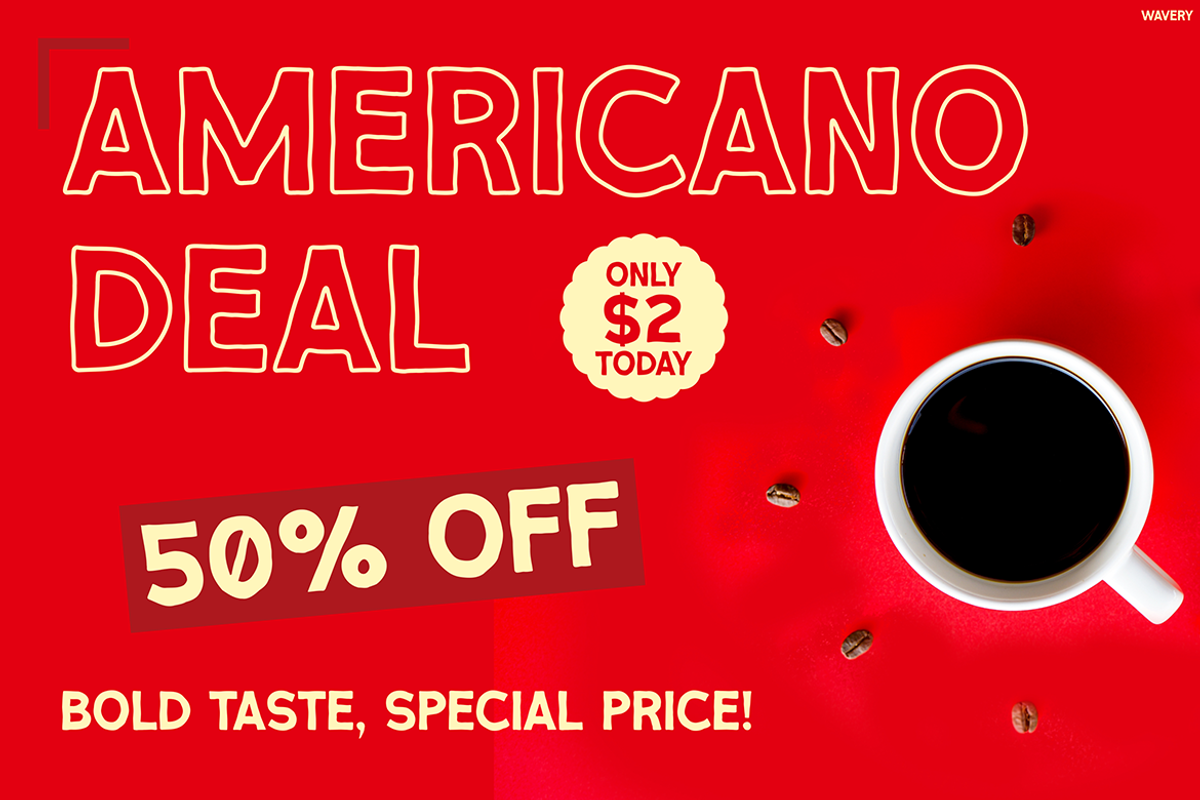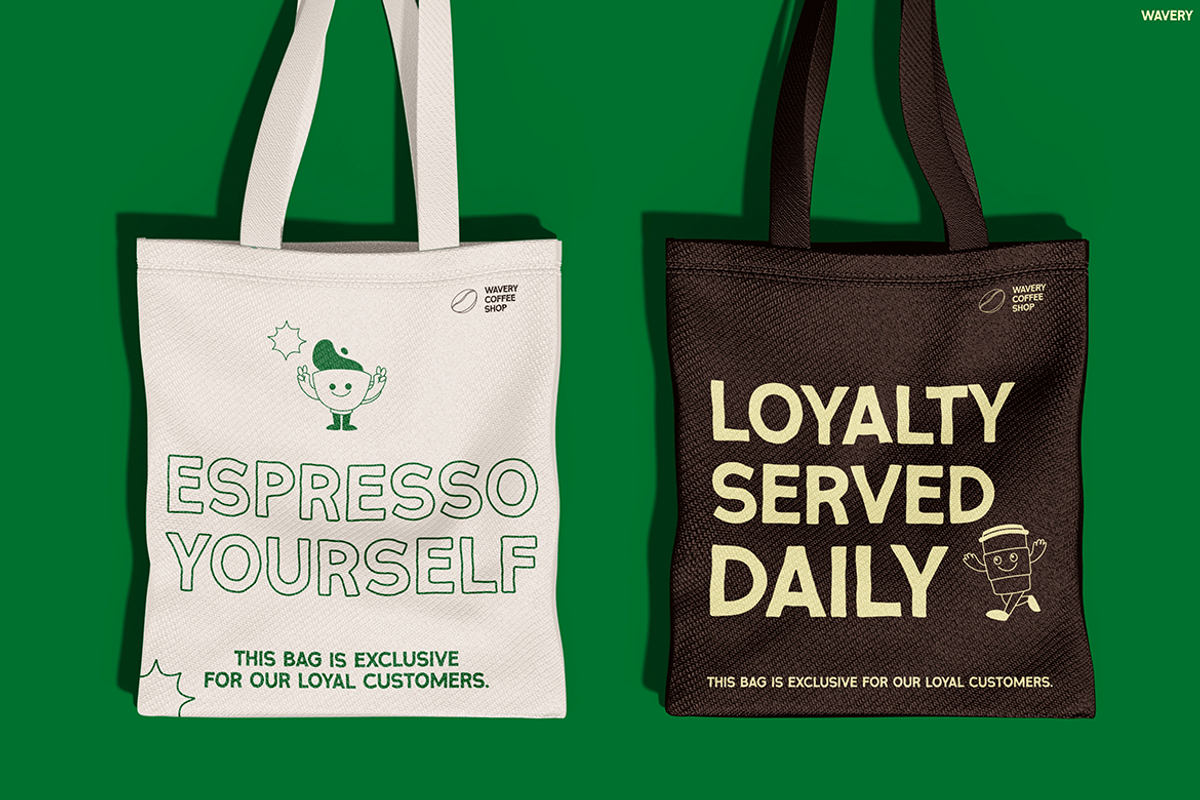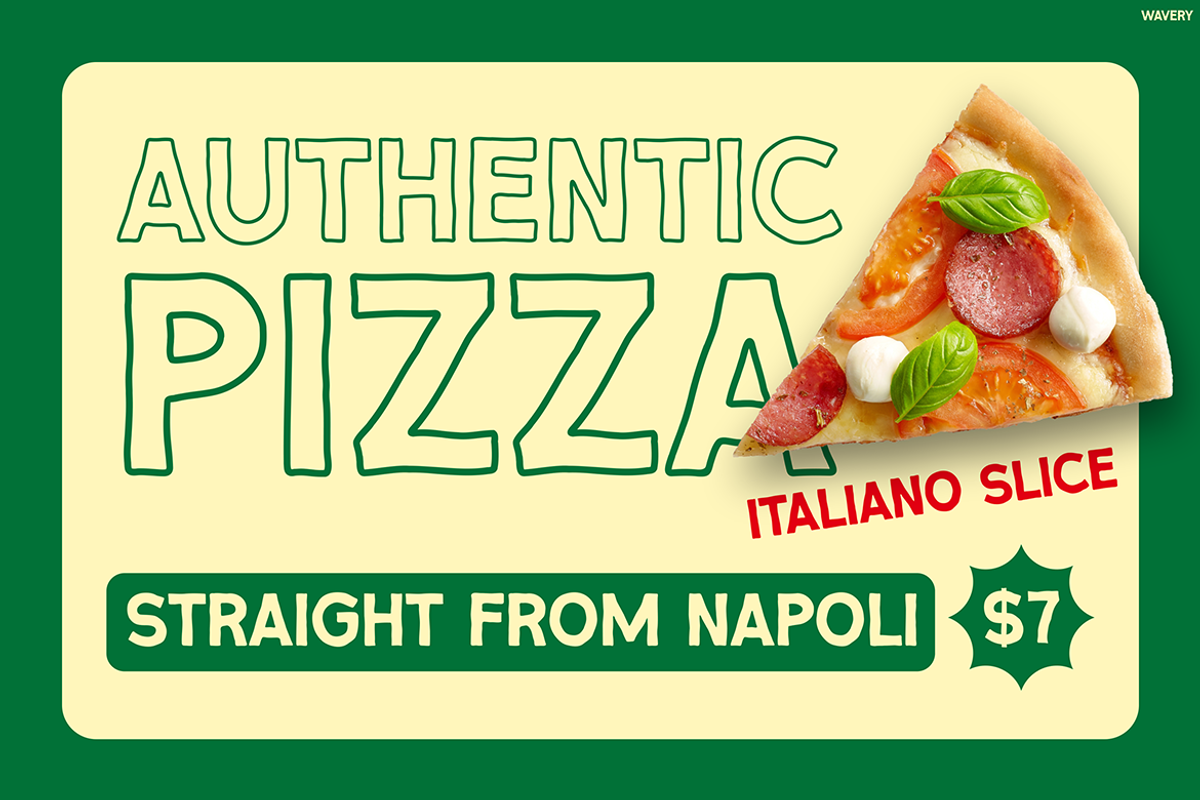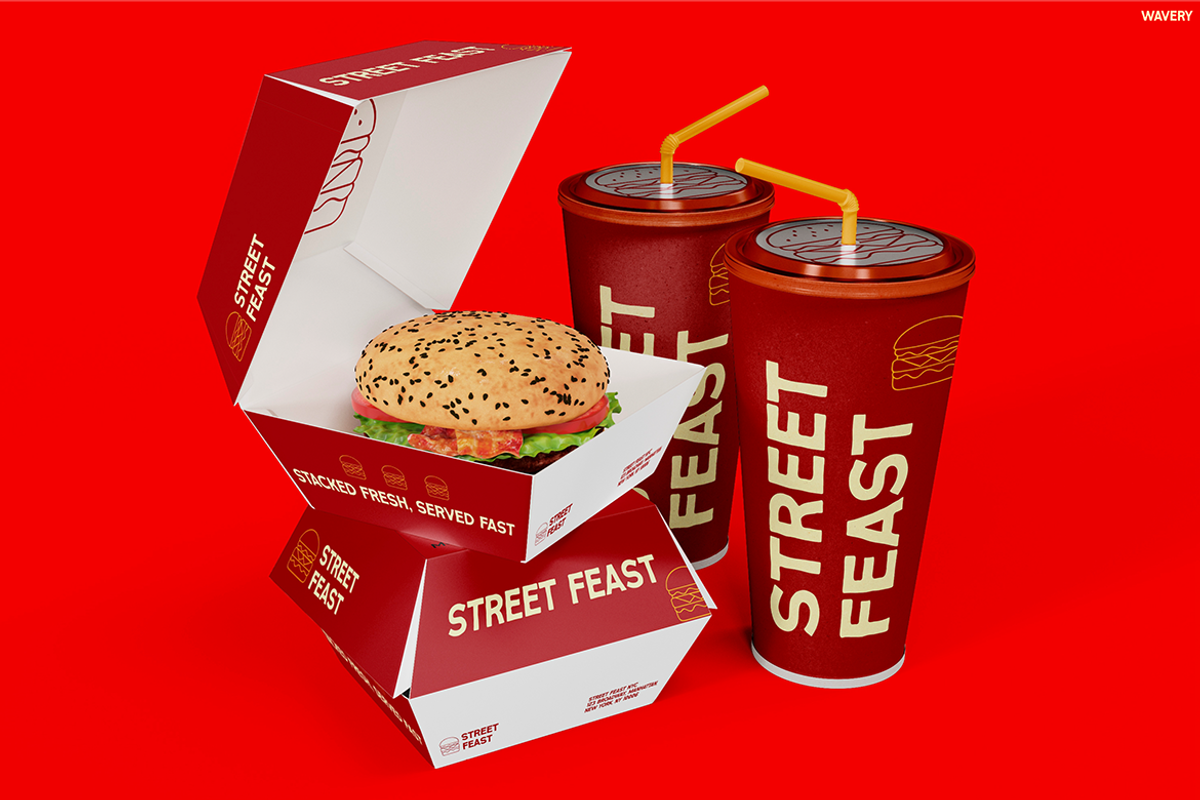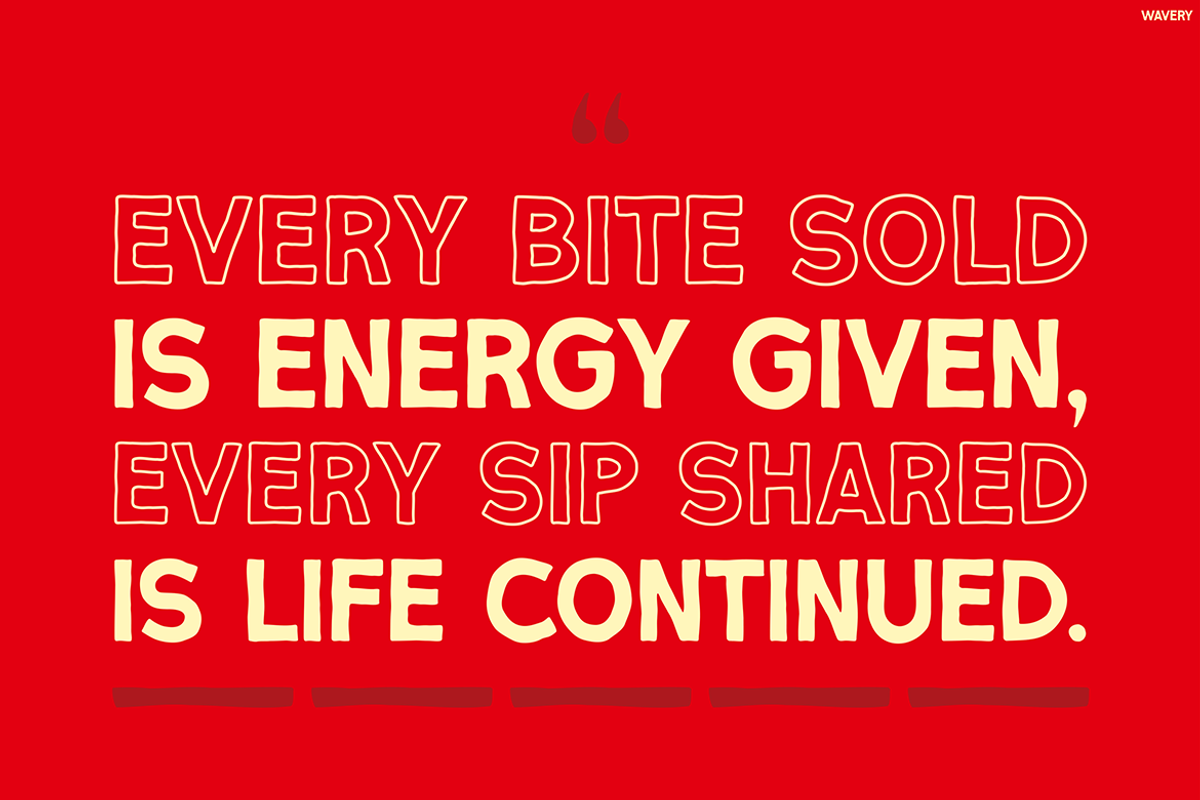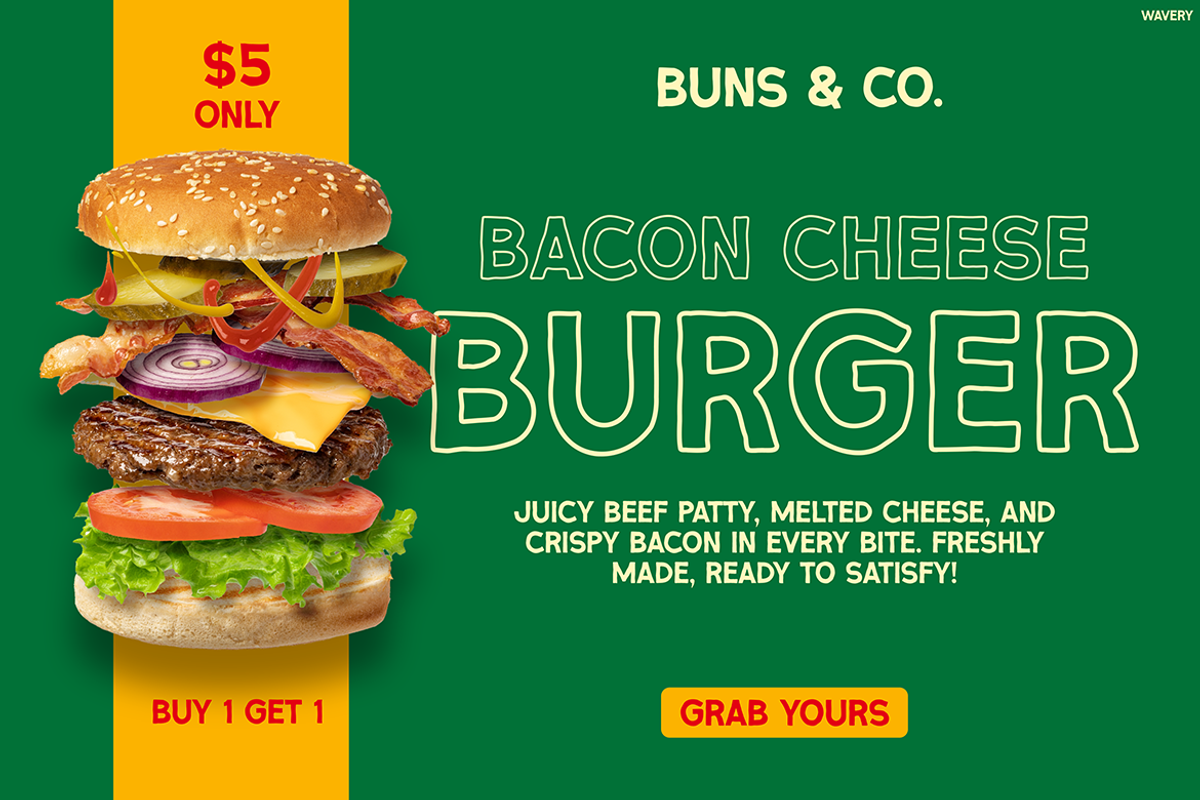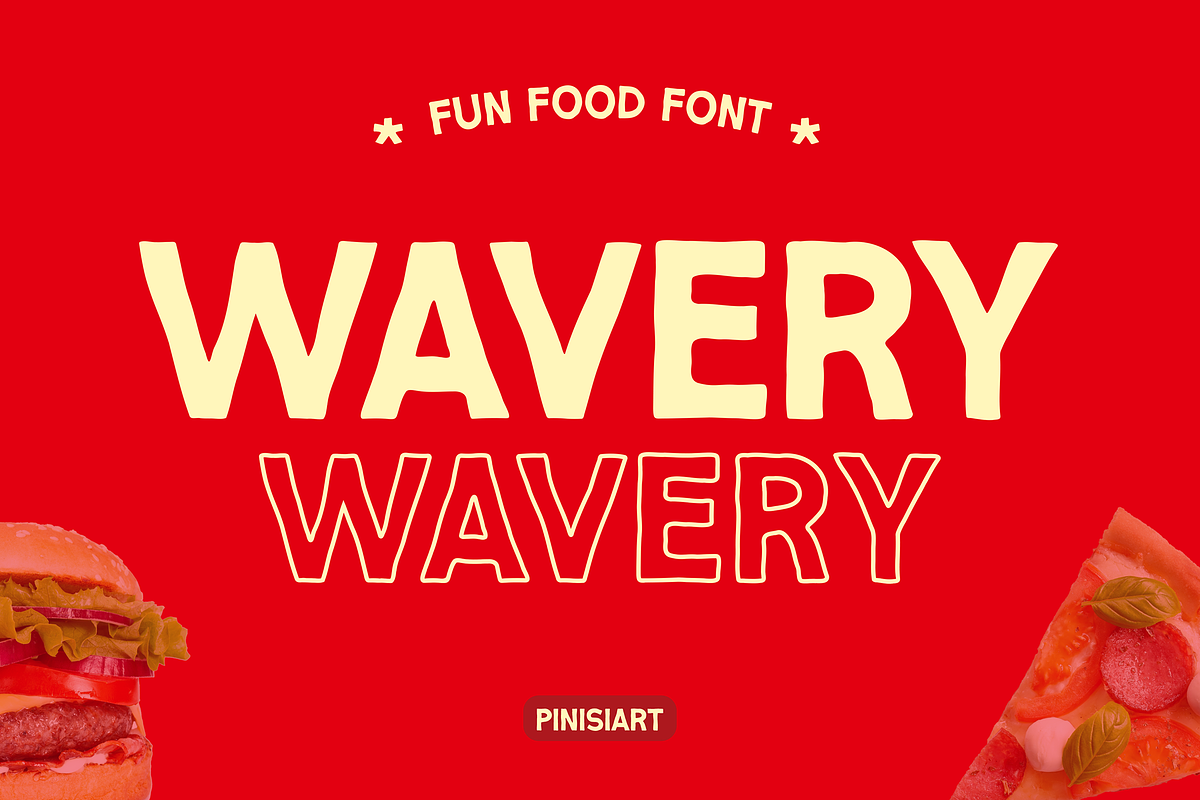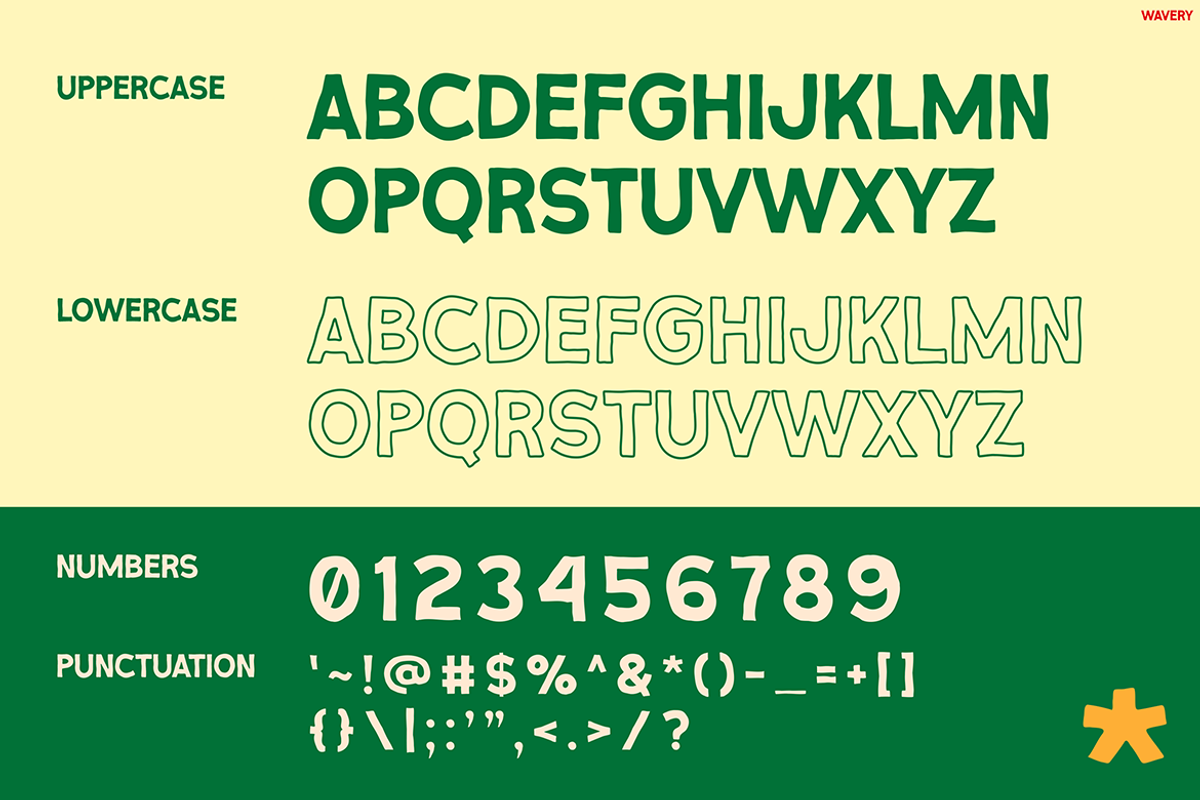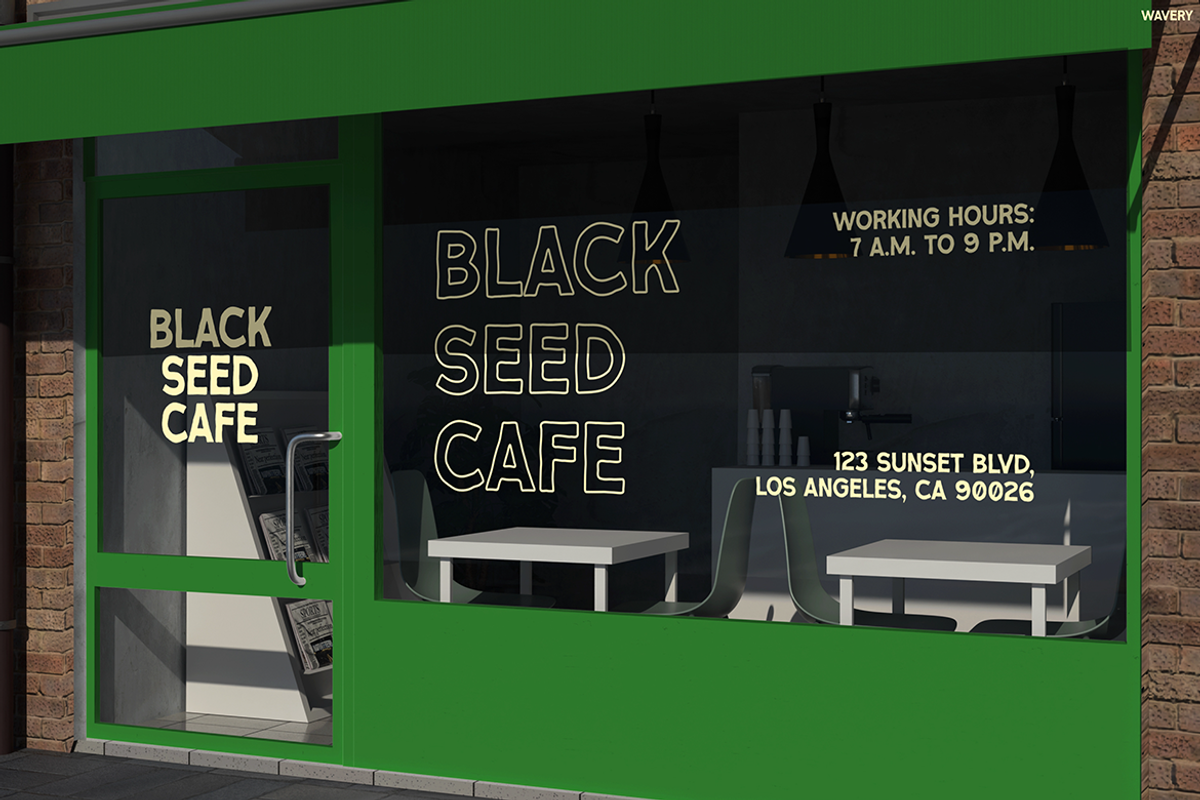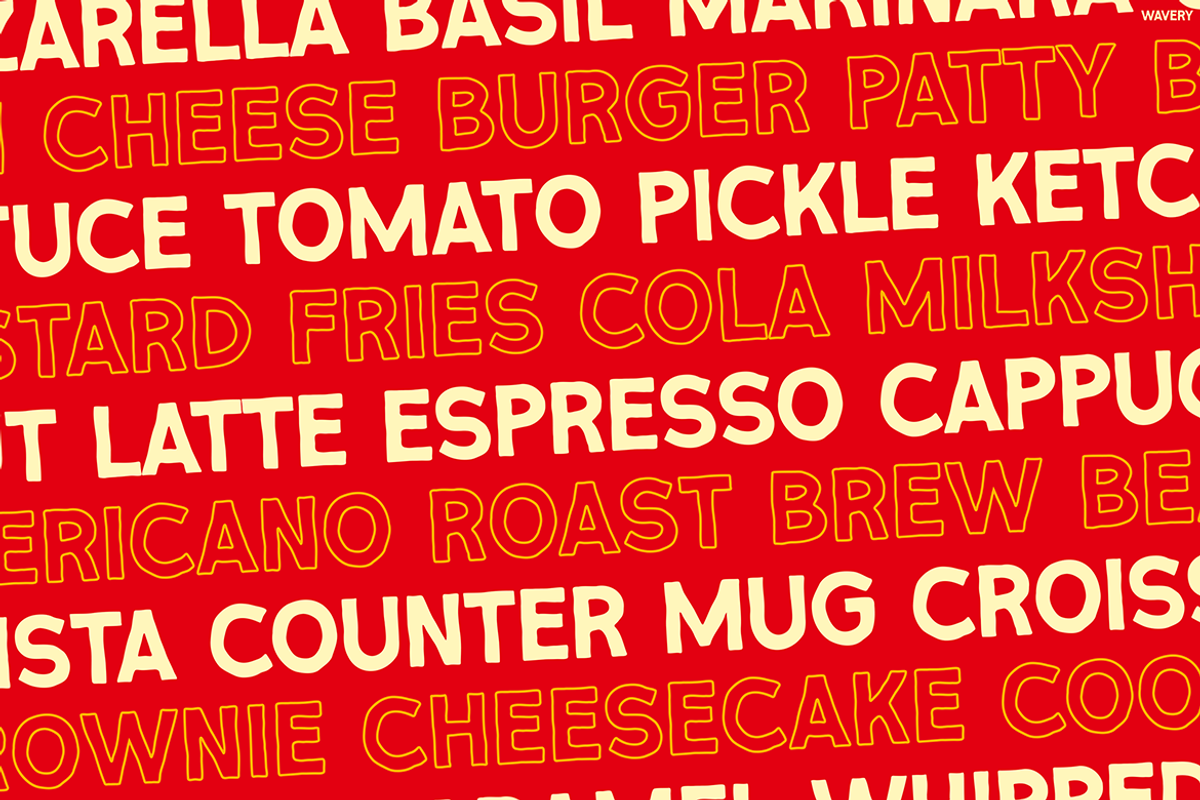
WAVERY
WAVERY – Fun, Bold & Full of Flavor Instagram Font WAVERY is a playful all-caps food-inspired font with bold character and outline lowercase for stylish contrast. Unlike ordinary display fonts, however, WAVERY combines uppercase strength and outline style, offering flexibility and eye-catching results. Its rounded strokes feel approachable, yet professional, making it perfect for branding. As a result, your designs appear lively, modern, and easy to read across menus, posters, and digital campaigns.
WAVERY captures the energy of street food culture and cafe branding with a look that feels bold yet timeless. Moreover, uppercase letters demand attention, while outline lowercase adds trendy flair that looks fresh on Instagram. Because of this, WAVERY works on bright ads, playful packaging, and food promotions. For example, burger menus, pizza deals, and coffee shop posters instantly gain personality.
In addition, WAVERY balances fun with professionalism. On the one hand, it is bold enough for fast-food branding. On the other hand, it suits eco-friendly merchandise. Consequently, it helps your words feel friendly, energetic, and memorable.
Furthermore, the font’s clean shapes ensure excellent readability across digital and print use. Therefore, it performs well on small social posts, large billboards, or merchandise designs. Designers often struggle with fonts that lose clarity in scale, yet WAVERY solves that problem. Its adaptability makes it reliable for both detailed layouts and bold single-word statements.